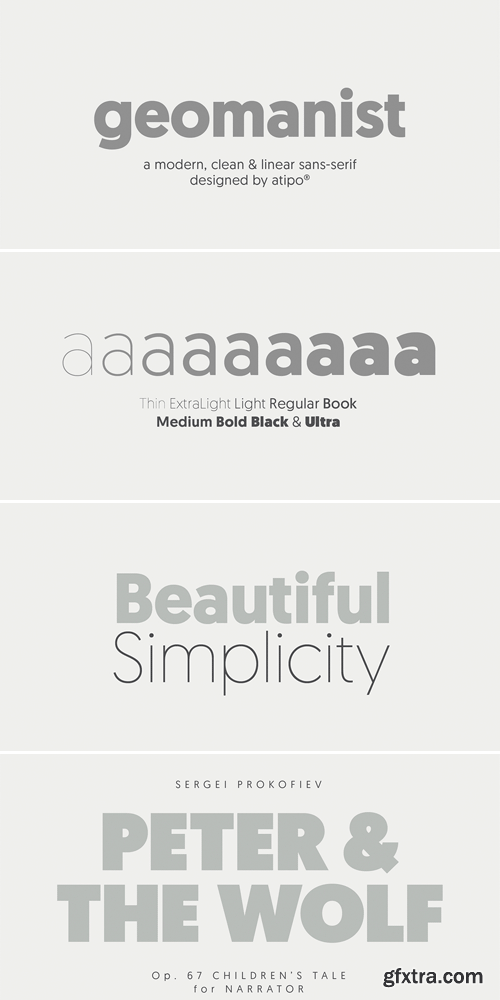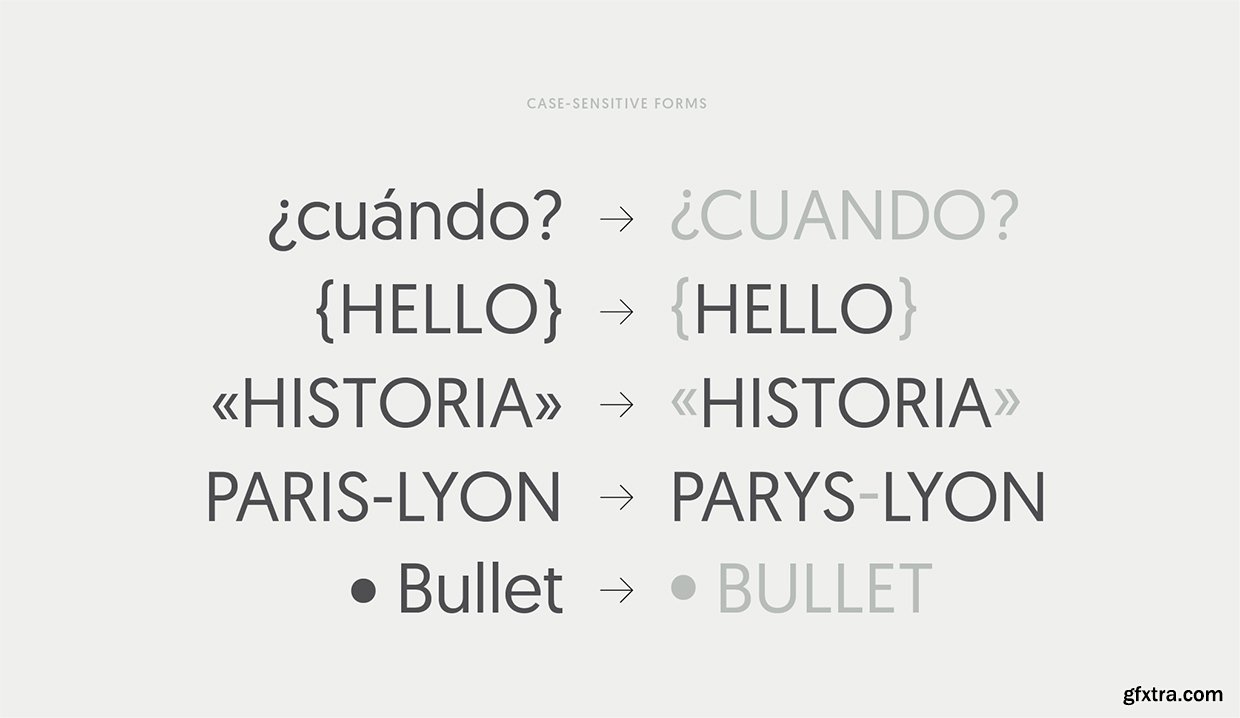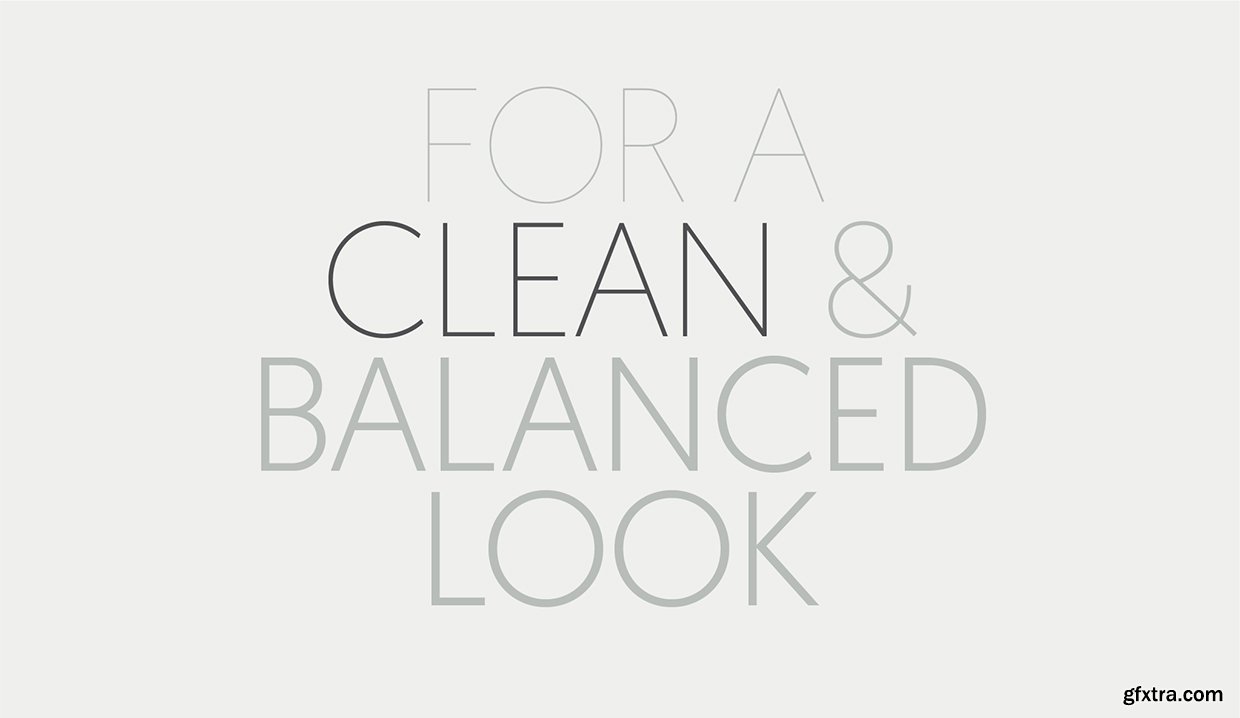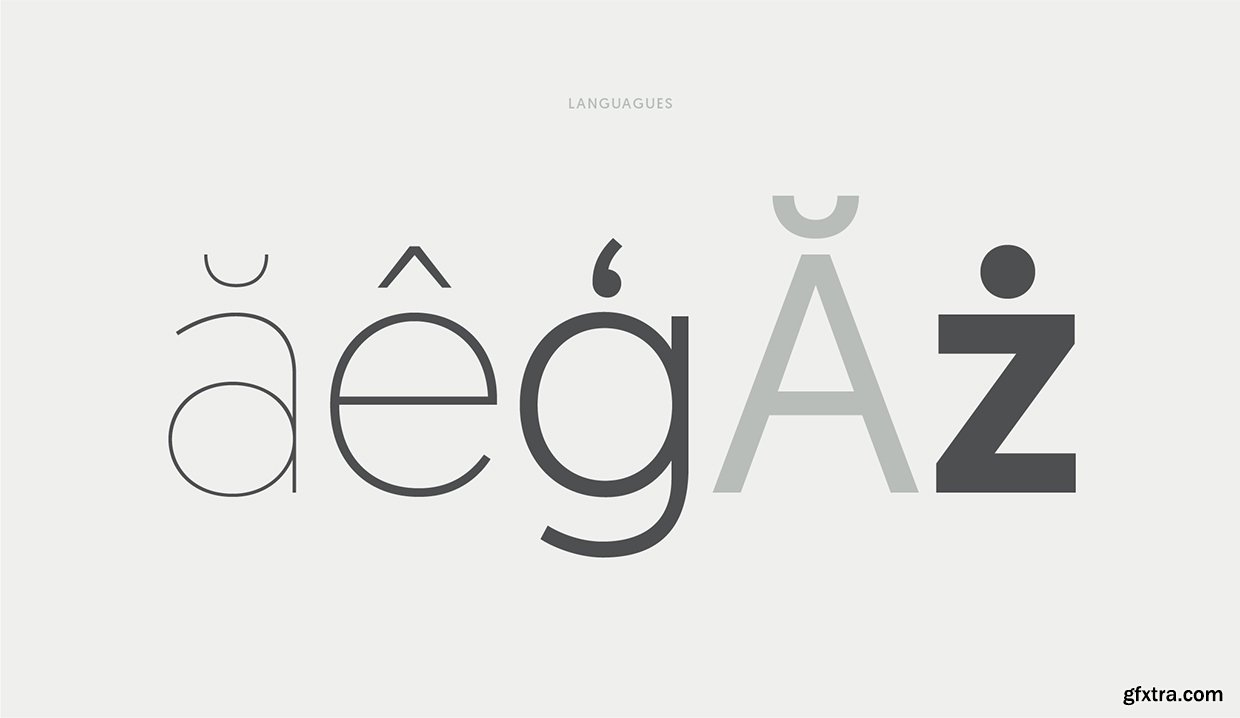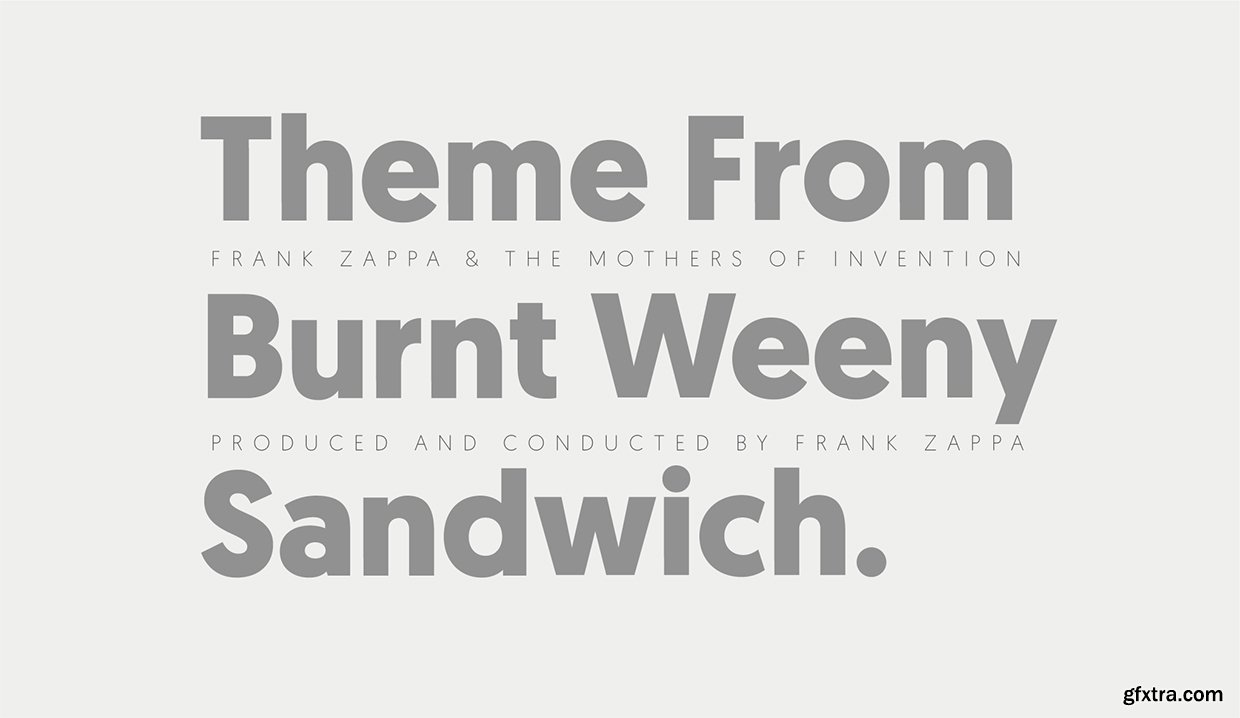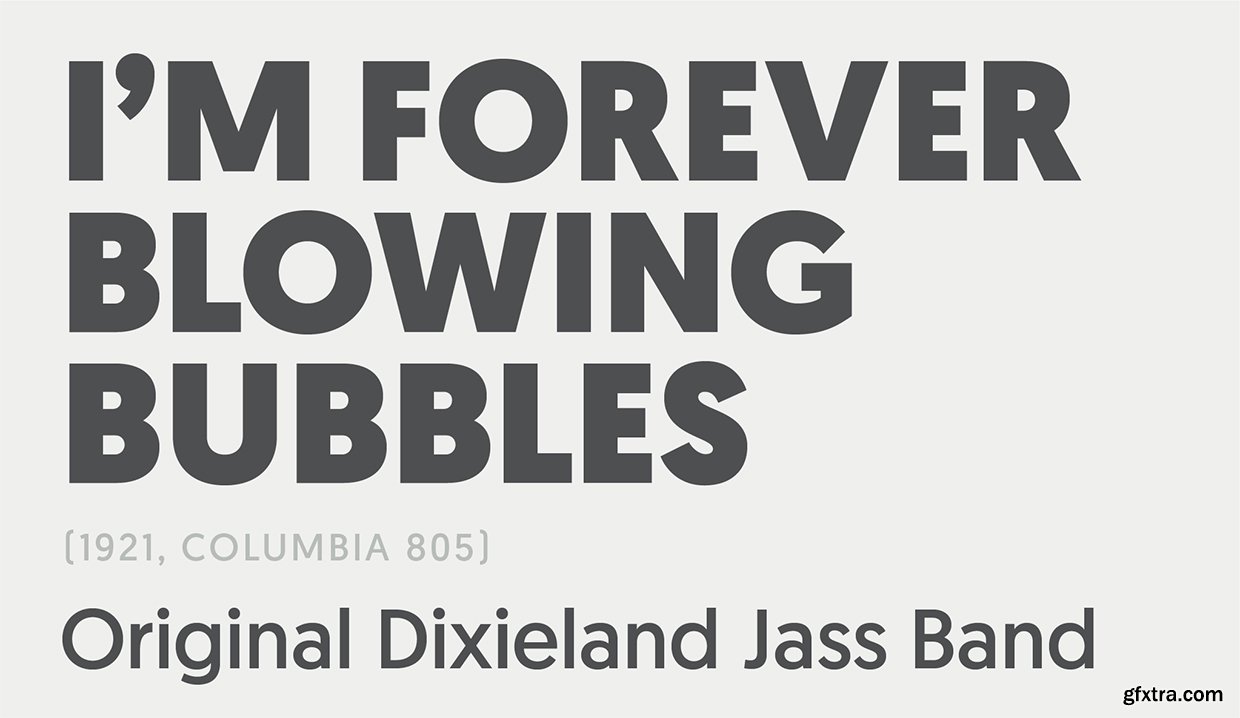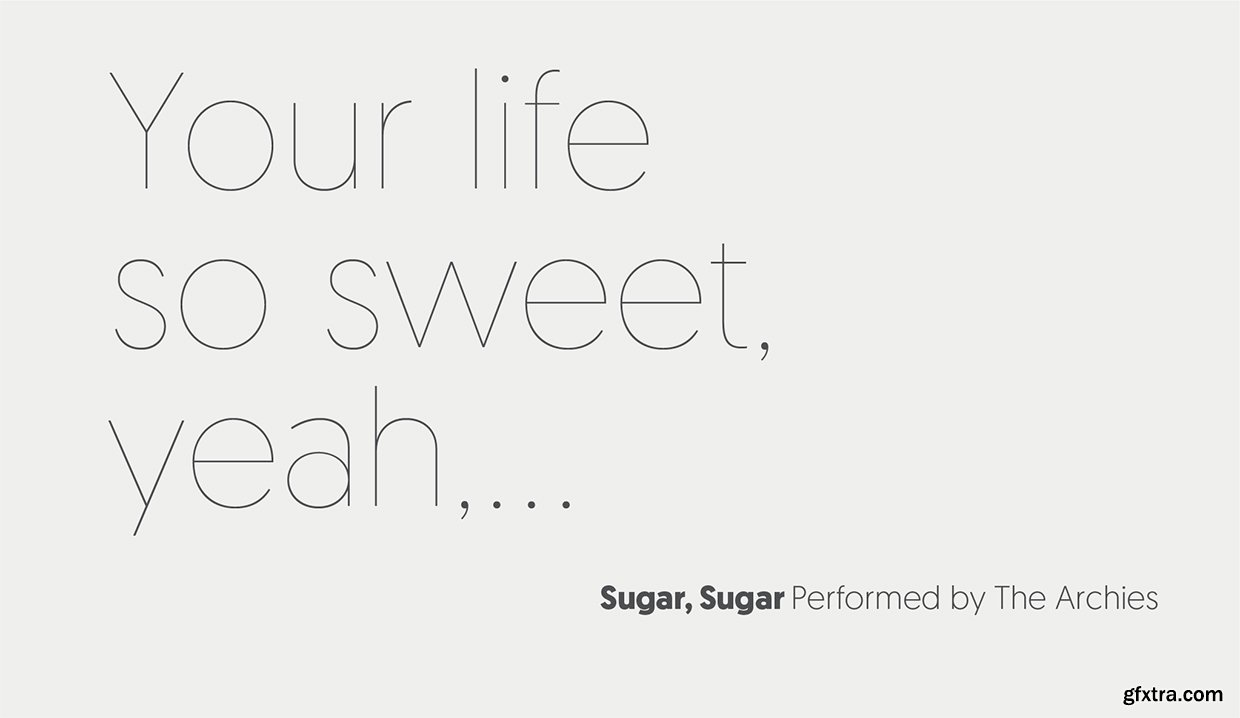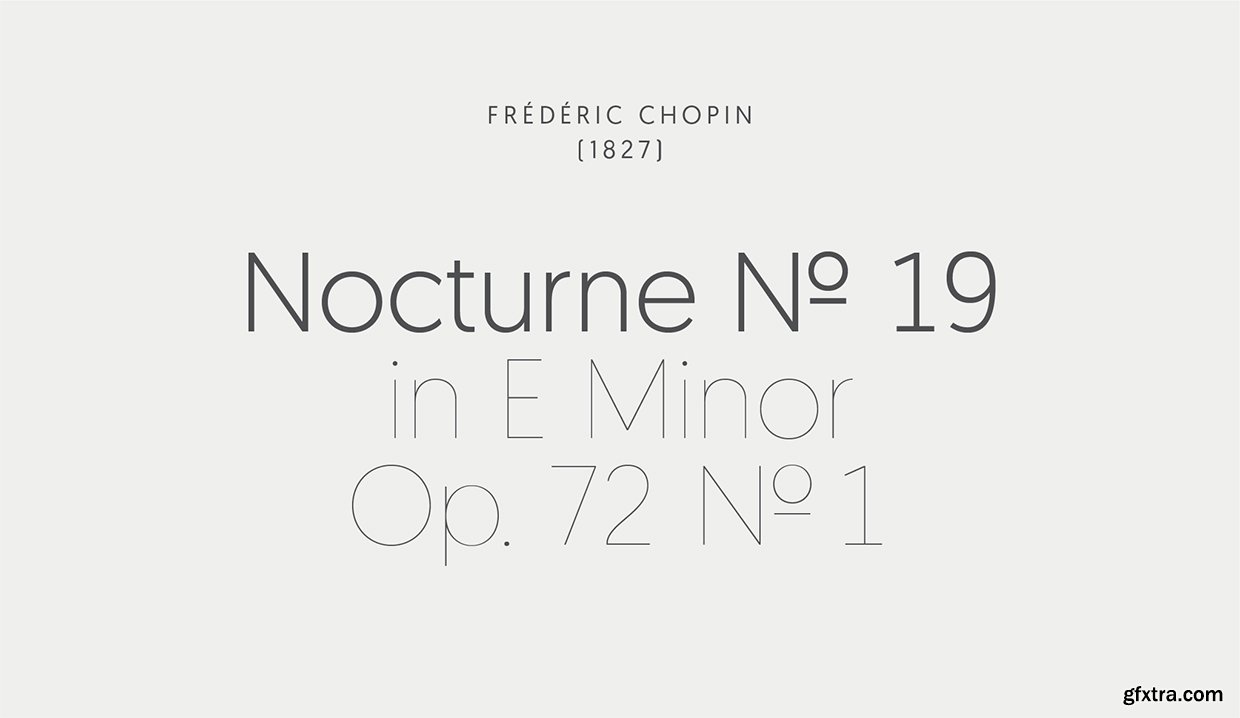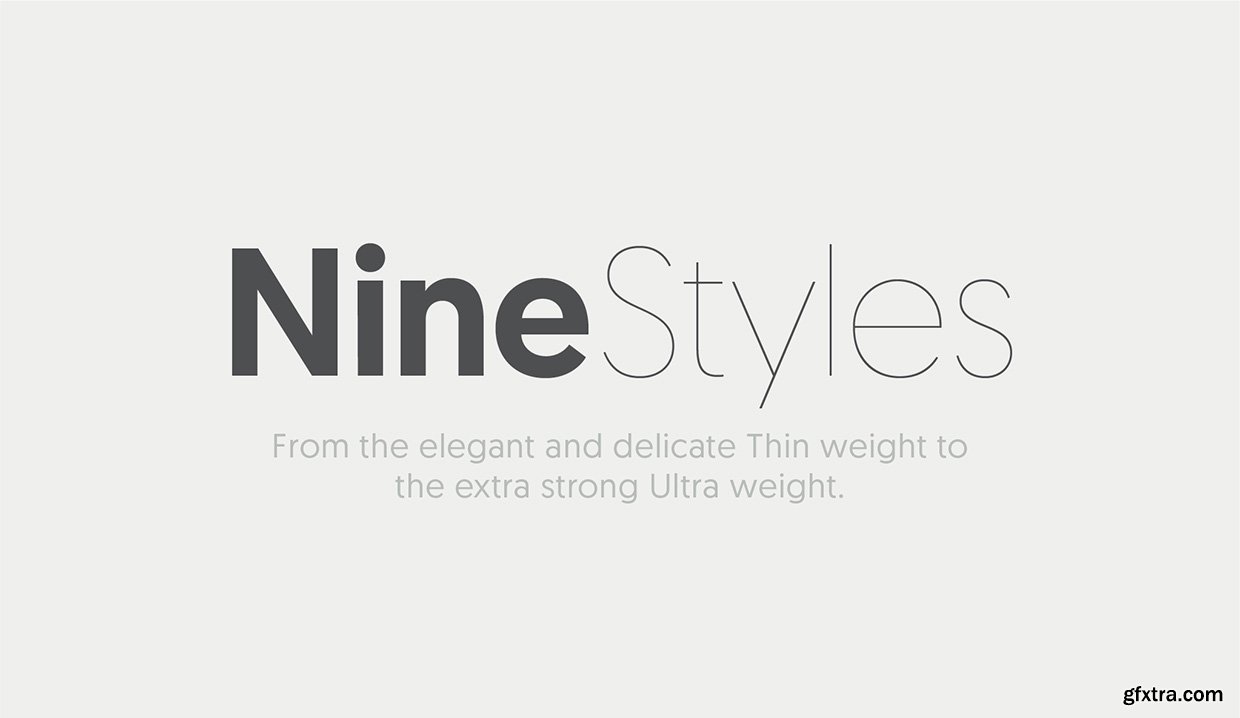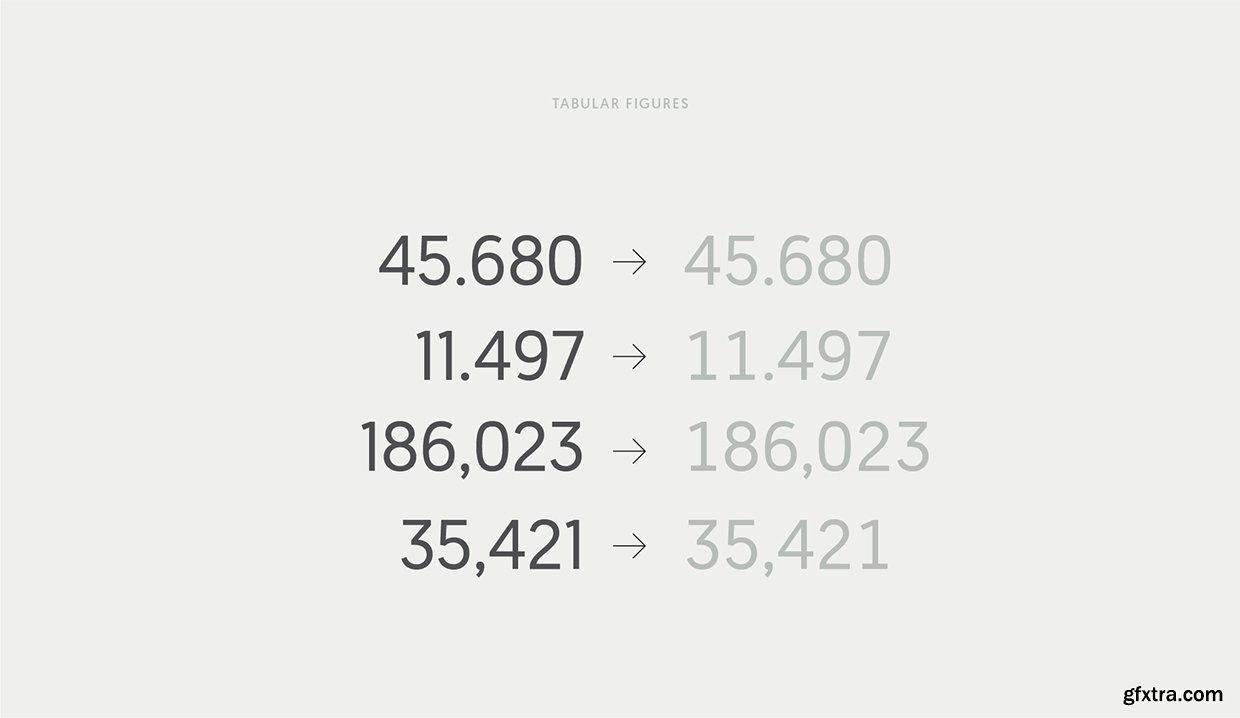
Geomanist font family, this is a cool Sans Serif typeface. Atipo Foundry is this font Author and You can download Geomanist font family freely for your purposes. You can use for logos and banners design, cards, software, applications, branding projects, labels, apparel design and more, with support for most western languages.